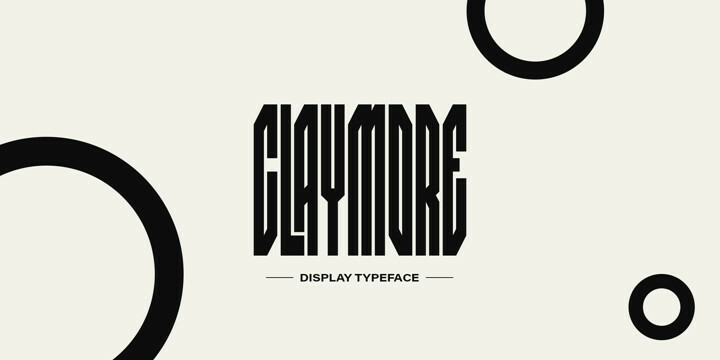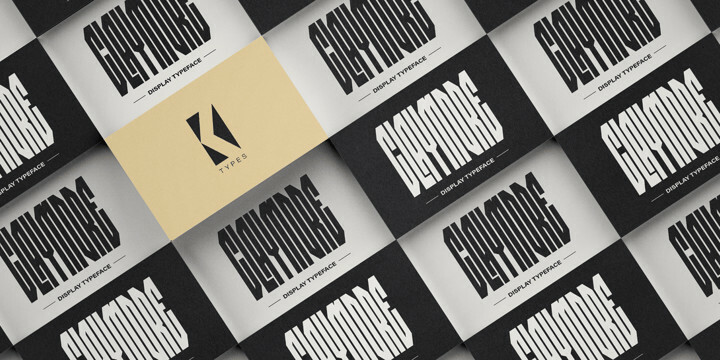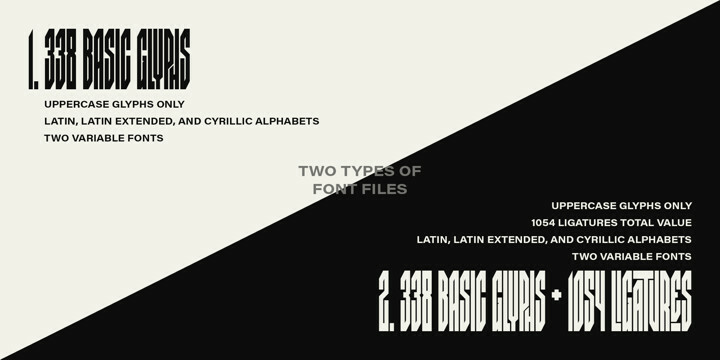
BK Claymore Font Family
BK Claymore Font FamilyClaymore is an ultra-condensed variable display typeface mainly created for expressive and decorative purposes. Enriched with a wide list of alternates and ligatures which cover a huge range of letter combinations, Claymore can become a powerful weapon to those, who want to make their typographic accents in design bright and unique.